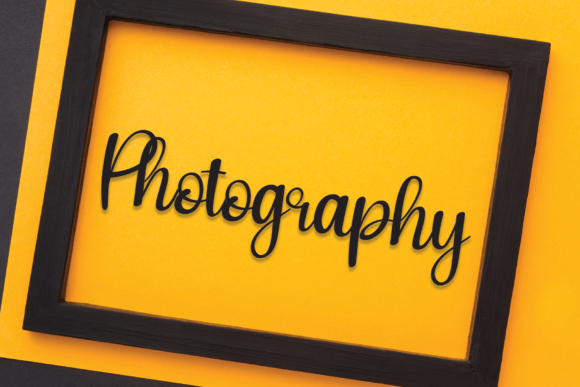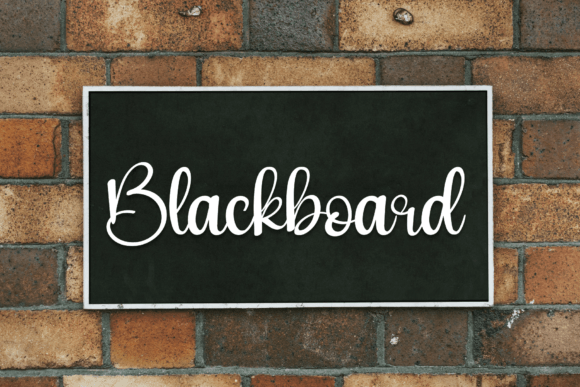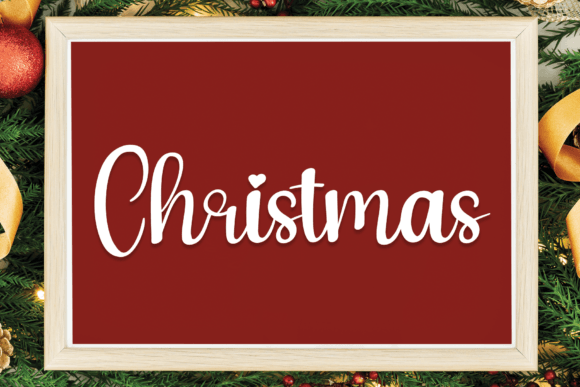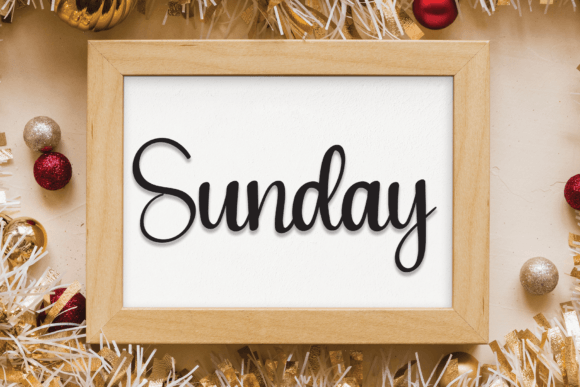
Introduction to New Grinch Font
As a designer, have you ever stared at a blank page, searching for the perfect font to bring your creative project to life? The excitement of discovery is a thrill that never gets old, and for many, it’s the moment when everything clicks into place. For those who crave that special something, we’re thrilled to introduce the New Grinch Font, a game-changing design resource that’s about to revolutionize the way you approach your next project.
This high-quality font is more than just a pretty face; it’s a versatile tool that’s perfect for everything from wedding invitations to product packaging, and its transparent background makes it a breeze to use. Whether you’re a seasoned pro or just starting out, the New Grinch Font is an invaluable addition to any designer’s toolkit.
Key Features of New Grinch Font
- Unique, playful design inspired by the beloved character from Dr. Seuss’s classic tale, perfect for creative projects and holiday-themed designs.
- Includes a range of characters, including uppercase and lowercase letters, numbers, and symbols, with a transparent background for easy customization.
- High-resolution design, suitable for use in print and digital applications, including posters, invitations, and social media graphics.
- Designed to be highly legible and easy to read, making it an excellent choice for a variety of creative projects, from children’s books to advertising campaigns.
Honest Review: New Grinch Font
I recently stumbled upon the New Grinch Font, and I must say it’s been a game-changer for my creative projects. The high quality of this font has elevated my designs to a whole new level. I love how versatile it is, perfect for any project that requires a touch of whimsy and sophistication.
- May not be suitable for very formal or professional projects
- Some users may find the font too quirky or overwhelming
Overall, I’m thoroughly impressed with the New Grinch Font. It’s a fantastic design resource that’s sure to add some personality to any project. While it may have some limitations, the benefits far outweigh the drawbacks.